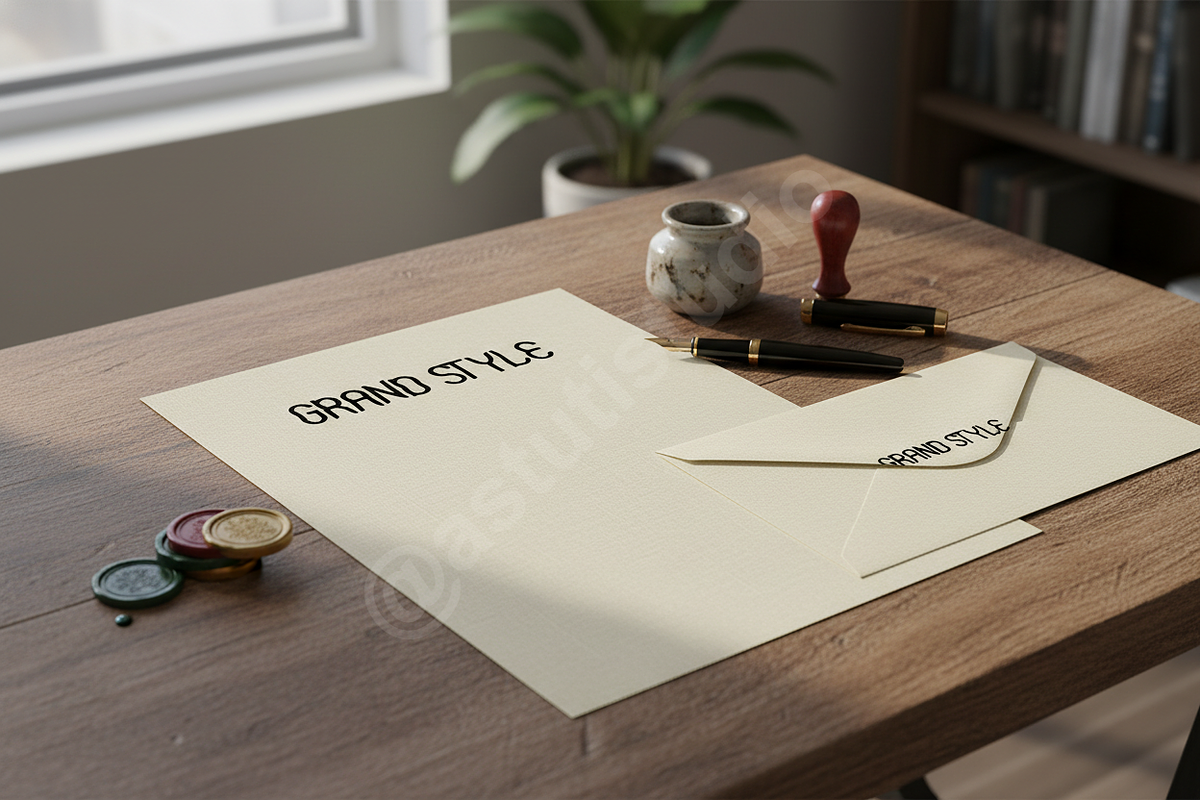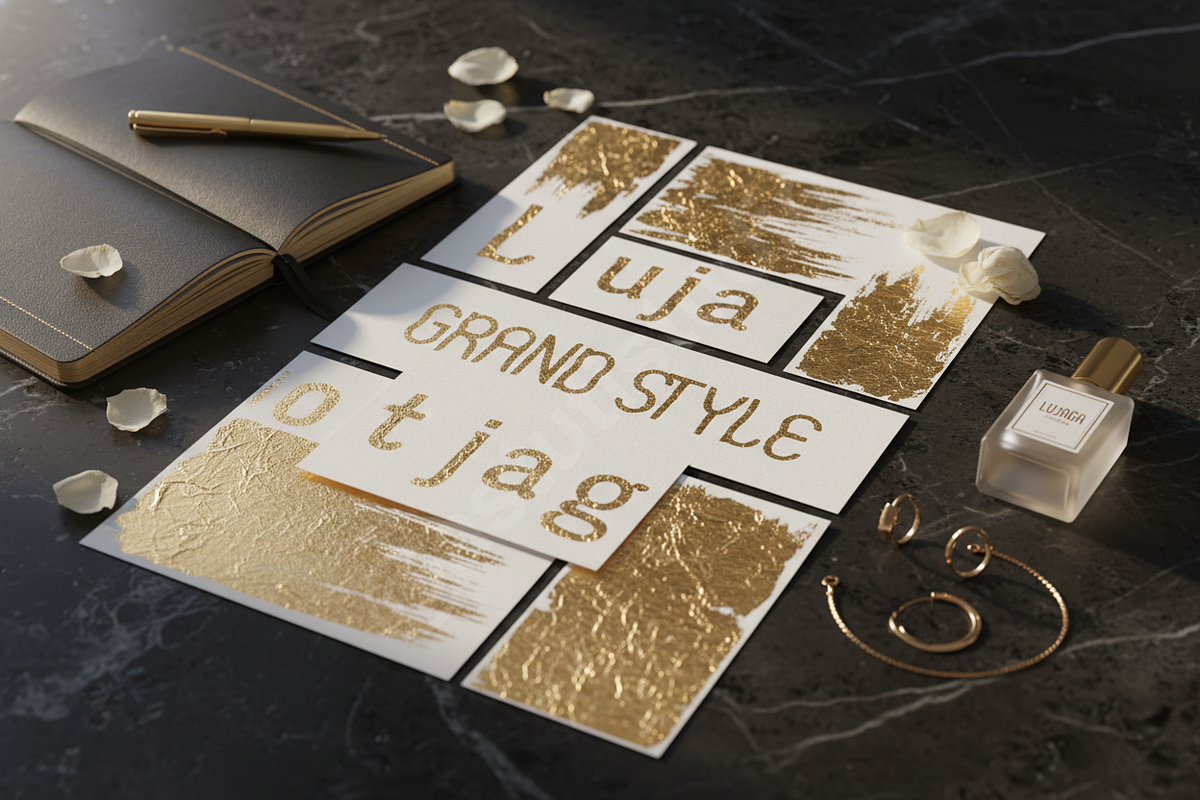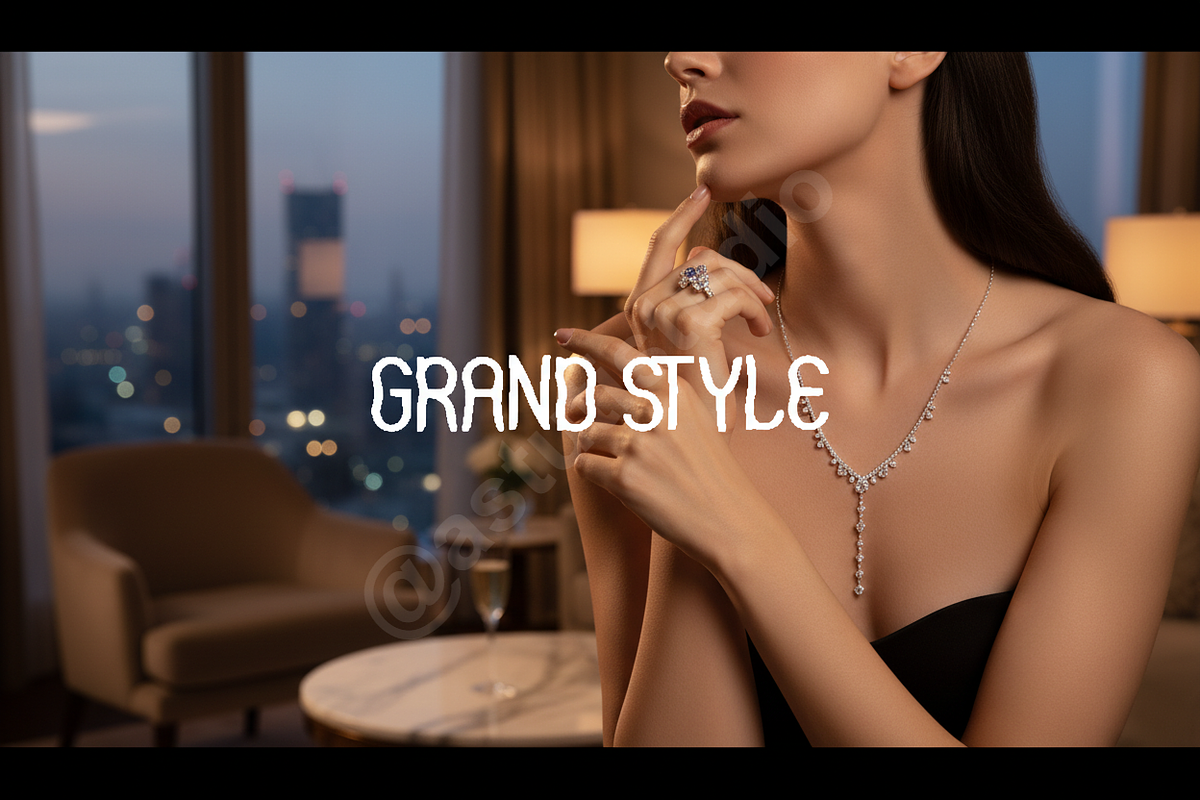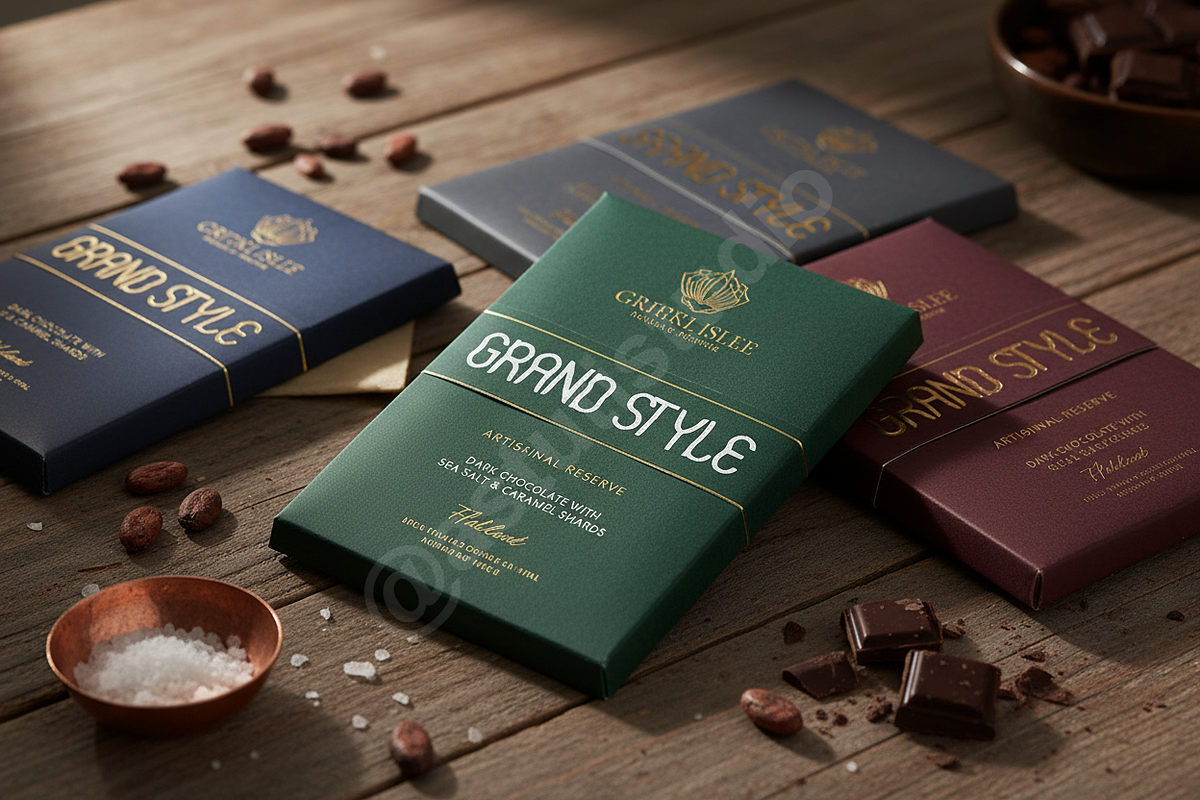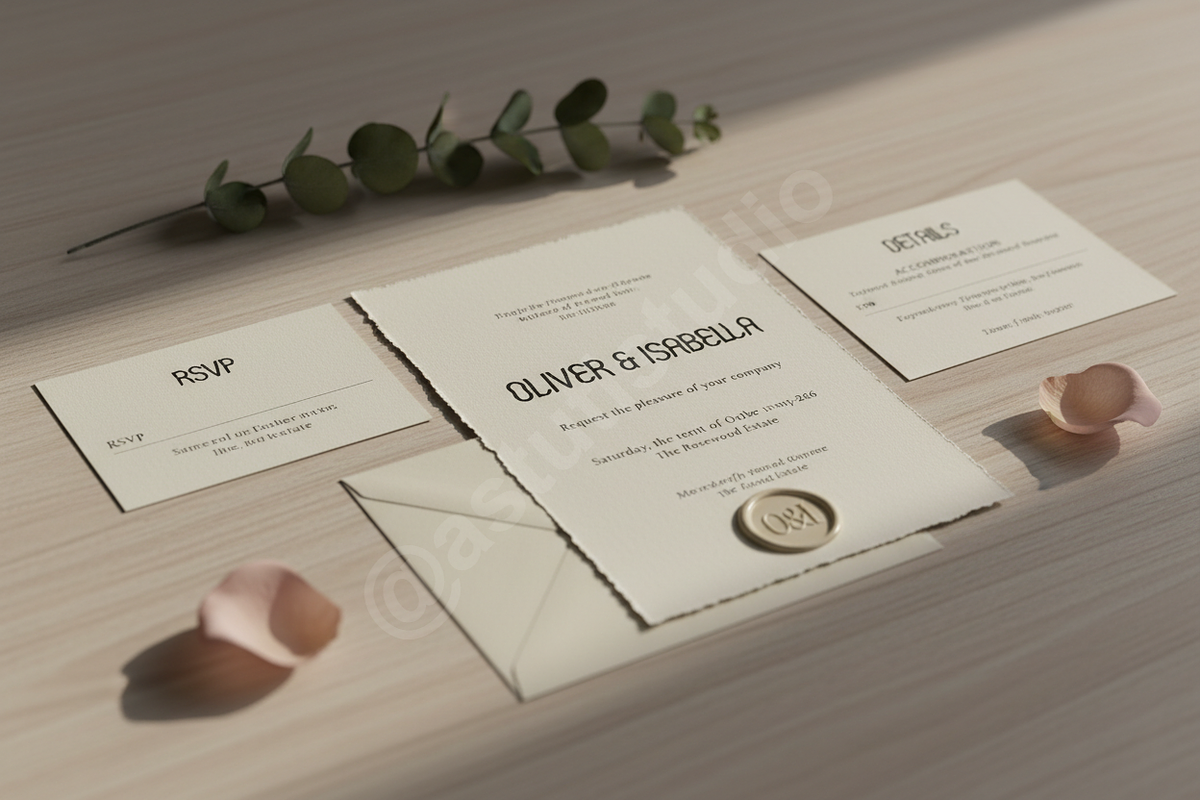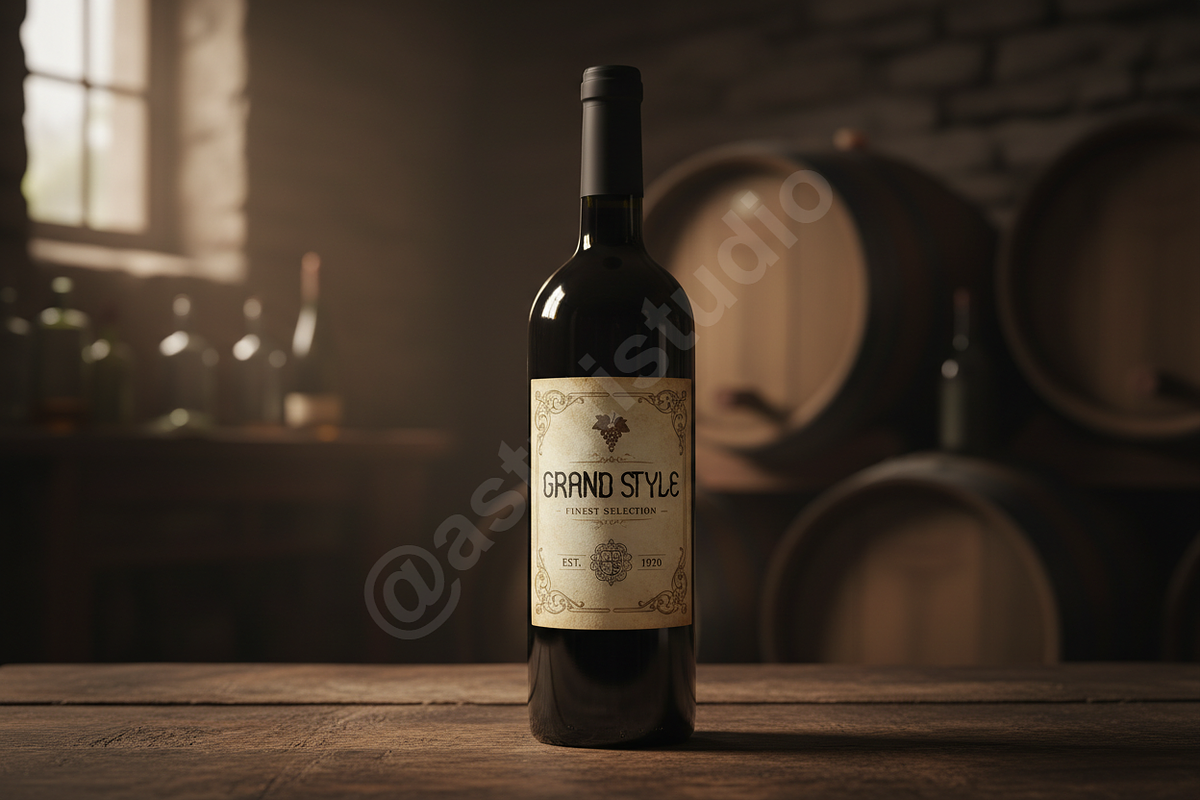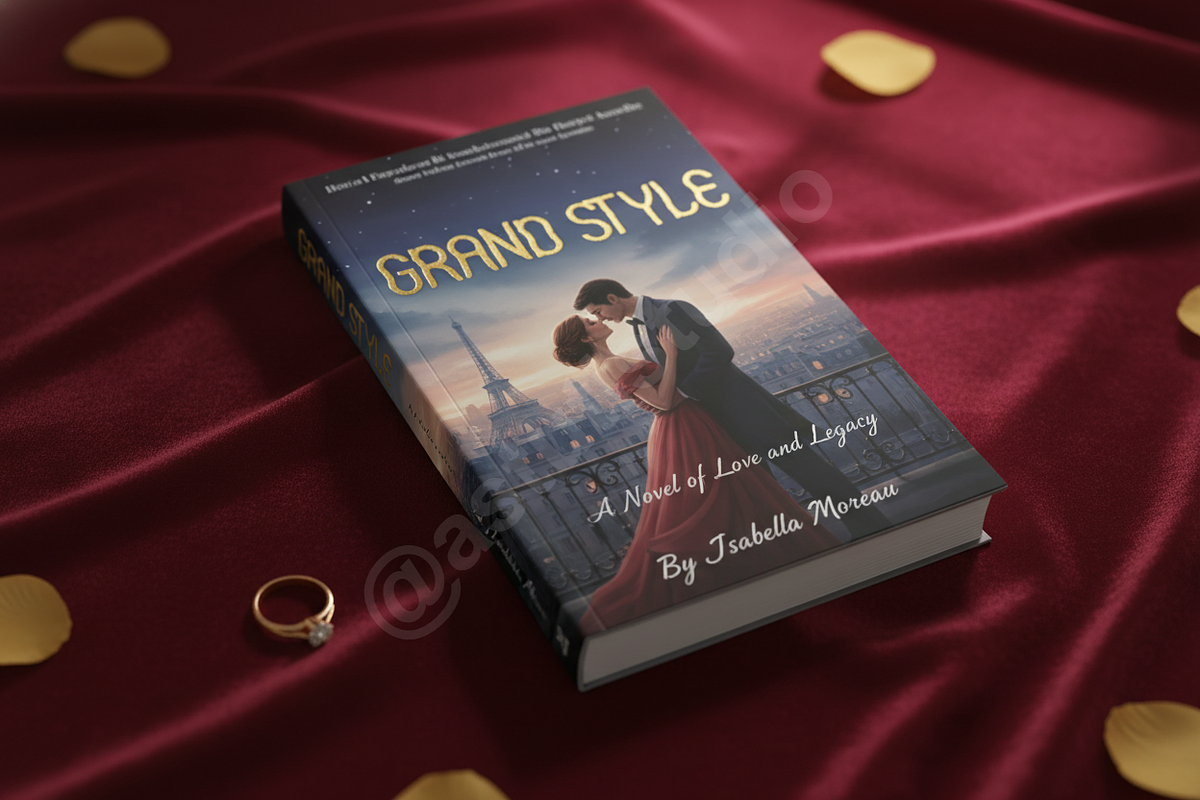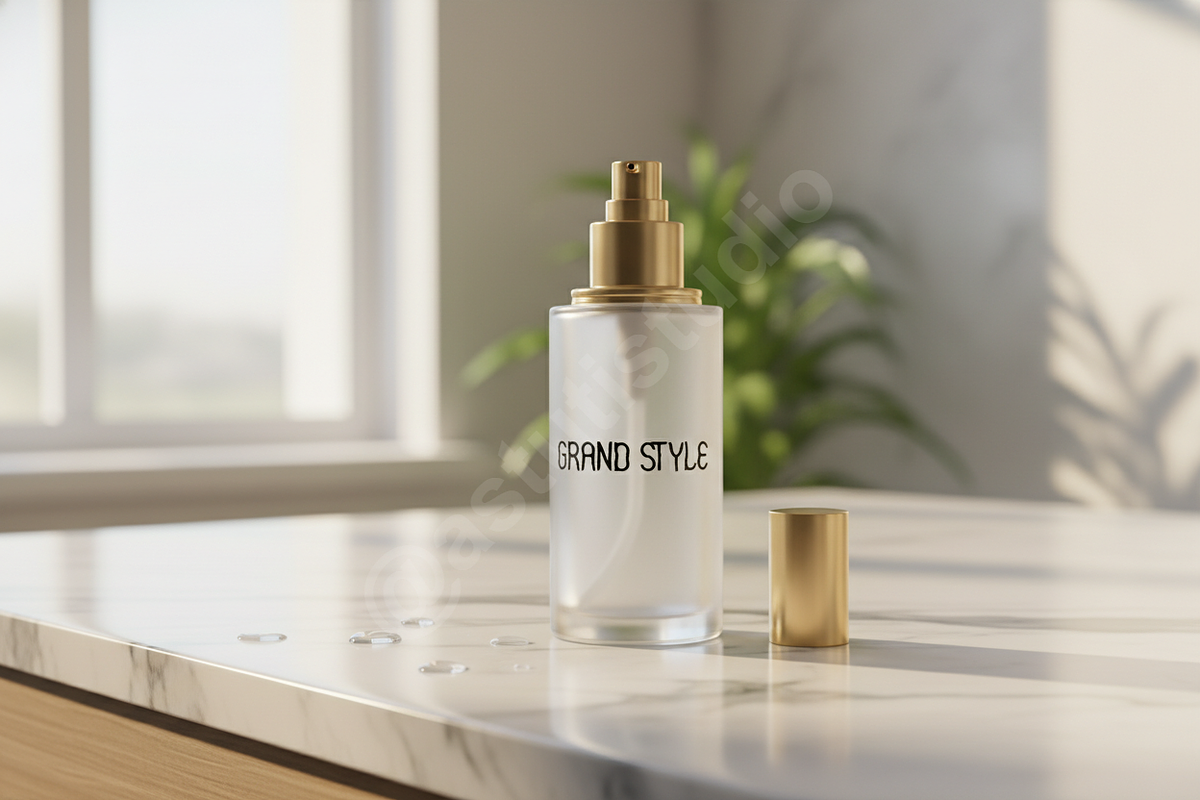
Lujaga | A Sophisticated Modern Luxu
Introduction Lujaga is a premium serif typeface meticulously crafted to embody elegance and modern sophistication. Designed for high-end aesthetics, this font balances timeless proportions with contemporary details, making it an essential tool for designers seeking a refined visual identity.
Ideal Applications This versatile font is perfectly suited for luxury branding projects, editorial layouts, high-end social media content, logo design, and upscale stationery. Whether you are creating a masthead for a fashion magazine or a minimalist brand identity, Lujaga provides a polished finish to every composition.
- Elegant and balanced serif letterforms
- Unique character alternates for custom styling
- Professional ligatures for seamless flow
- Comprehensive multilingual support
- Precise kerning and spacing